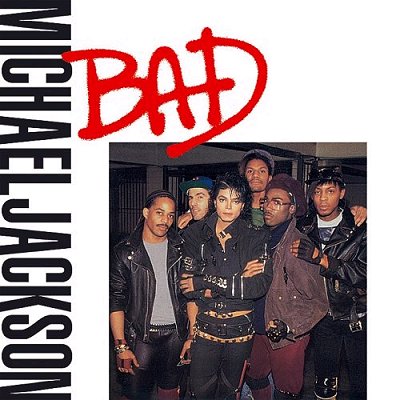
What font is that on KO's show?
I've been watching a lot of Countdown with Keith Olbermann these days, for understandable reasons: it's campaign season. And I've gotta say something that's been on my mind for a long, long time:
KO's show has got the flat-out best graphics intro and bumper package I've seen on any show, anywhere. (And it goes great with that Beethoven's Fifth score. 🙂 )
It does leave me wondering, though -- what is that font that Countdown uses? It's really unique. Anyone know where it can be gotten free or cheap?
Yeah, each S is different too. You could do something like this in Illustrator or Photoshop... or even with a black marker on paper and scan it, lightly pencilling in the letters first and tweaking it afterwards on the Mac. 🙂
I'm looking for some help, i made a poster ages ago and i used the font shown in the picture, but I can't find it in pages, and I think thats the program I used.
Is there anyone out there who knows the name of this font?
Anyone know where i can find the official Premier League font with the numbers included?
I've been after the "Bad" font for ages! Have found some that come close such as some in the "Pea handwritting sets" which I have found for free online. But none of them have the right A or D.
I hope you can help me, as my Google-fu has failed me. Does anyone know what font was used for the MacGyver title?
With the differences in the lower case "m" and such, I would guess that this one was a handlettered/scanned one- but hope someone else can ID it if not.
Good observation! I also just learned that the branding originates from a sign that is 50 years old so there is a very good chance that this is indeed hand lettering... looks like I will be doing some tracing.